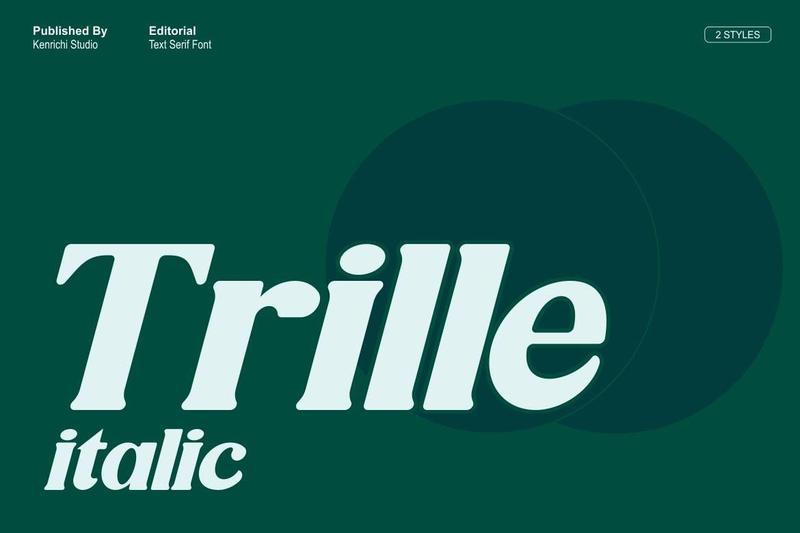
Trille 57BKXVT
* Lavenia Font is a modern and authentic font.
* Perfect for both professional and branding needs of a product.
* This font is suitable for any branding project like quotes, logo, blog header, poster, banding, letter, invitation, stationery,
* etc… Designed as a versatile and flexible that can be used on a range of projects and mediums.
* outstanding in a wide range of contexts.